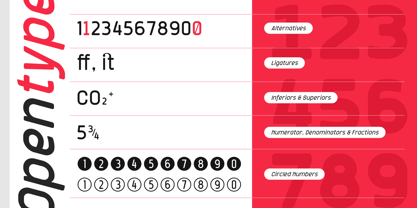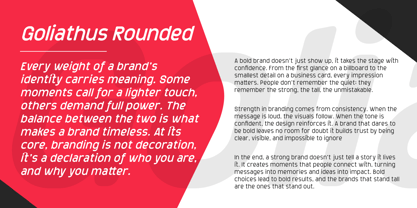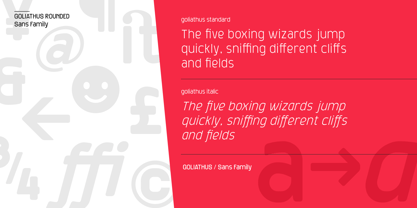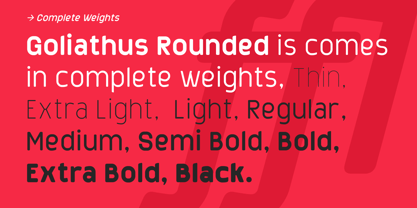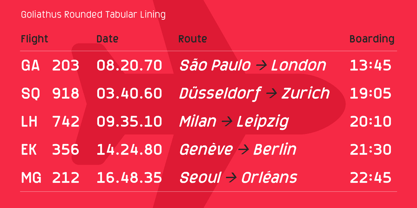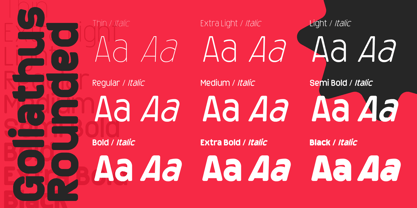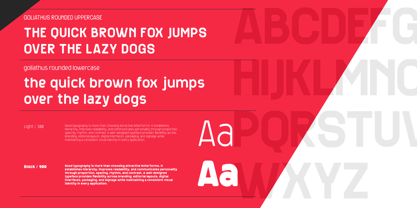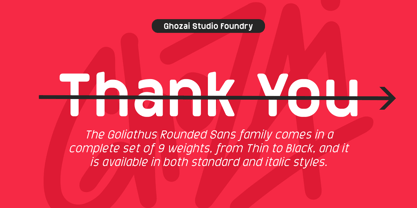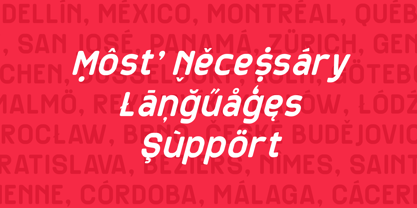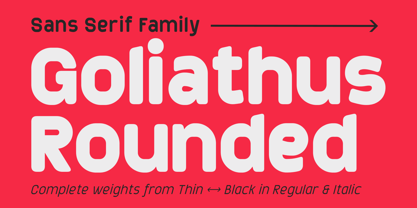
Goliathus Rounded
La famille de polices Goliathus Rounded a été conçue par Manzur Ghozaali et publiée par Ghozai Studio. Goliathus Rounded contient 18 styles et options de package familial. En savoir plus sur cette famille
Goliathus Rounded is a grotesque-sans font family featuring 9 distinct weights, from Thin to Black, along with regular and italic styles, totaling 18 fonts offering the flexibility to create expressive typography and cohesive visual identities. Designed to perform across a wide range of applications, editorial layouts, authority in branding, and clarity in professional communication.
Goliathus Rounded includes a range of OpenType features, such as Stylistic Alternates for subtle variations in letterforms, Ligatures for smoother text flow, and Tabular Lining Figures for neatly aligned numerical data and other OpenType features.